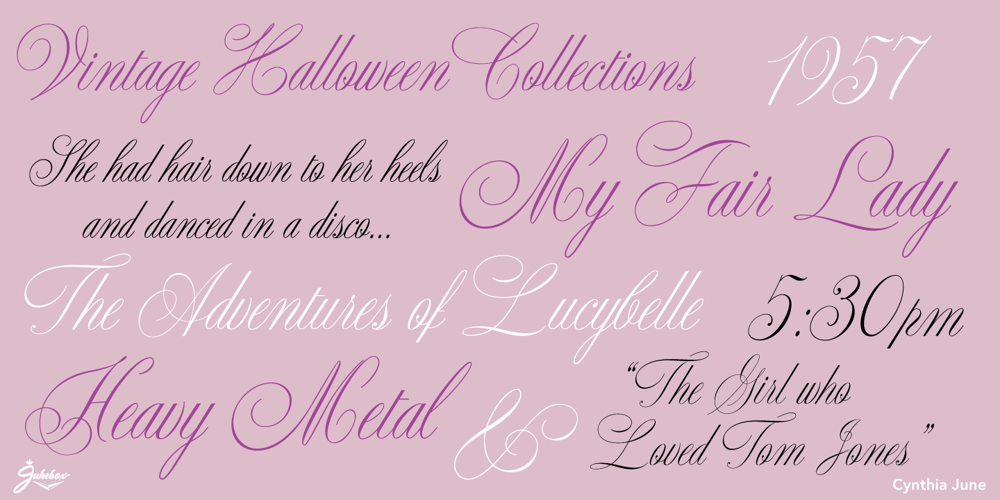
Cynthia June JF Font Family was designed by Jason Anthony Walcott and published by Jukebox Collection. Cynthia June JF contains 1 styles and family package options. Cynthia June is an elegant and formal copperplate style script font from Jukebox. Perfect for weddings, dinners, holidays or any design that needs classic elegance, flair and femininity, this typeface will fit the bill! It includes an alternate set of swash caps and several alternate lowercase letters to expand its use. The font is named for a dear friend of the designer. Jukebox fonts are available in OpenType format and downloadable packages contain both .otf and .ttf versions of the font. They are compatible on both Mac and Windows. All fonts contain basic OpenType features as well as support for Latin-based and most Eastern European languages.